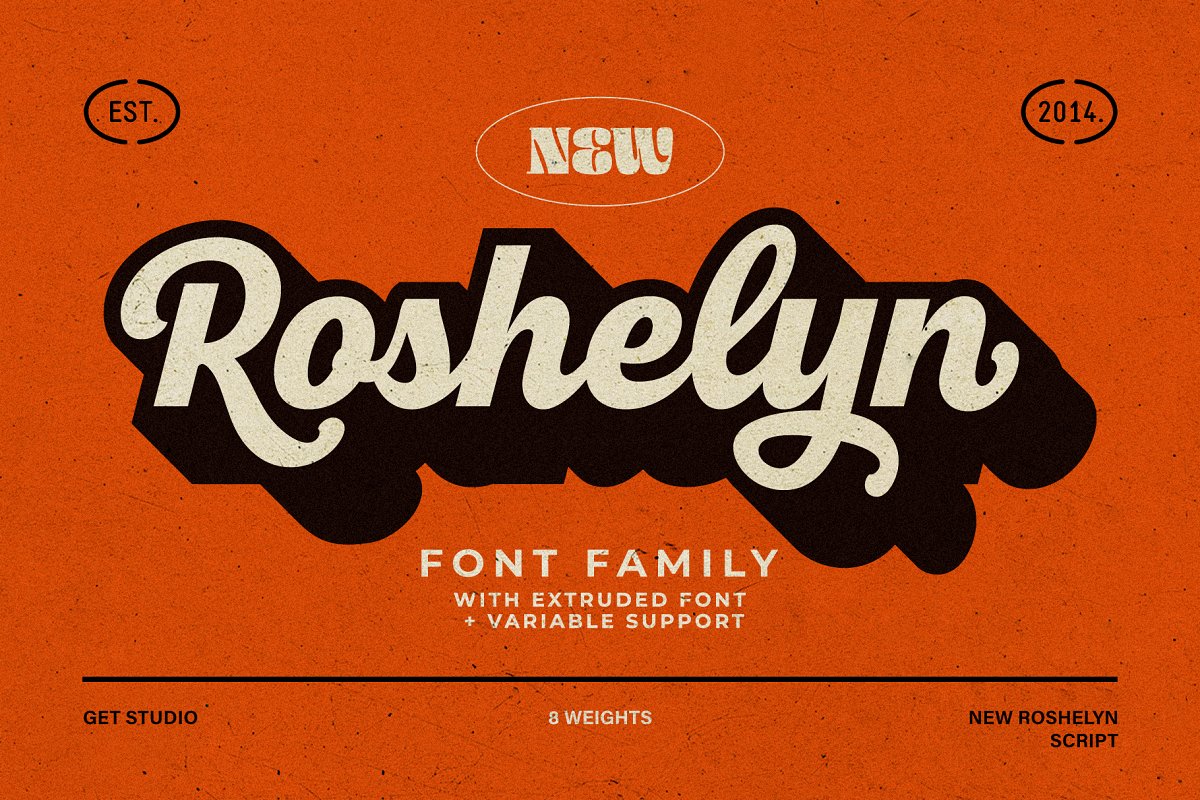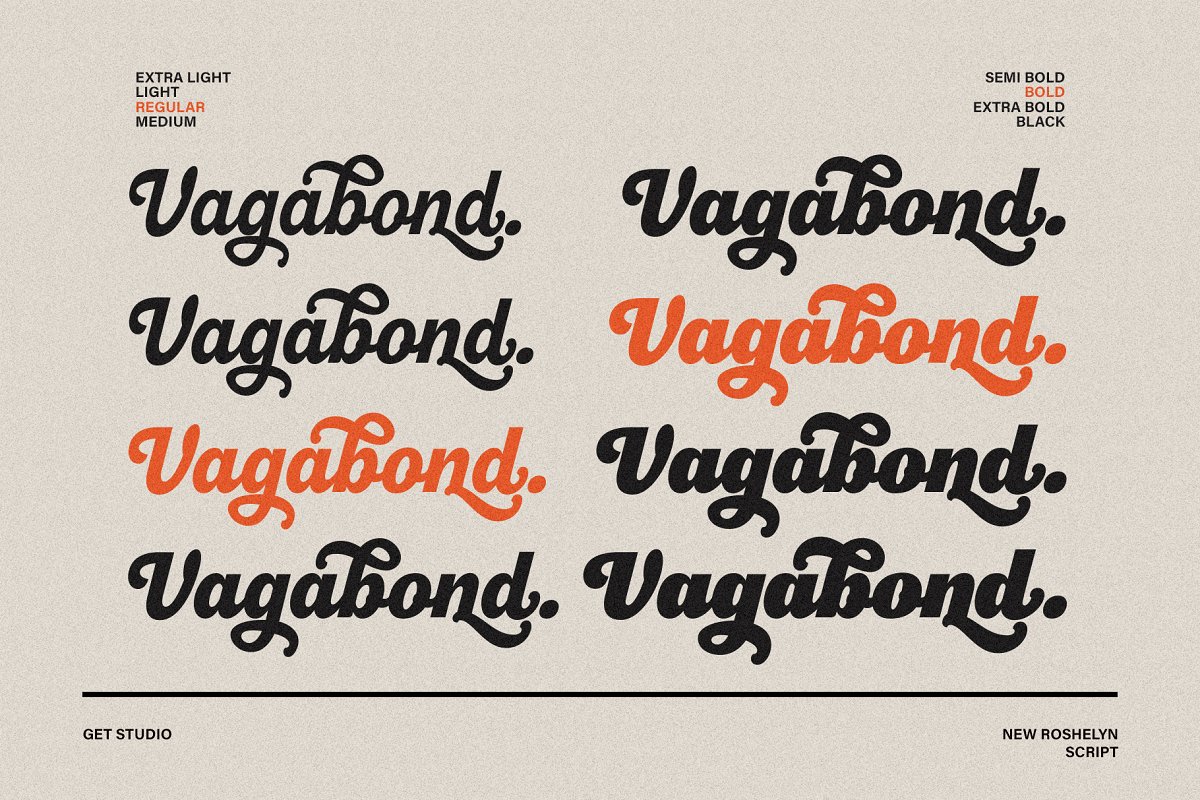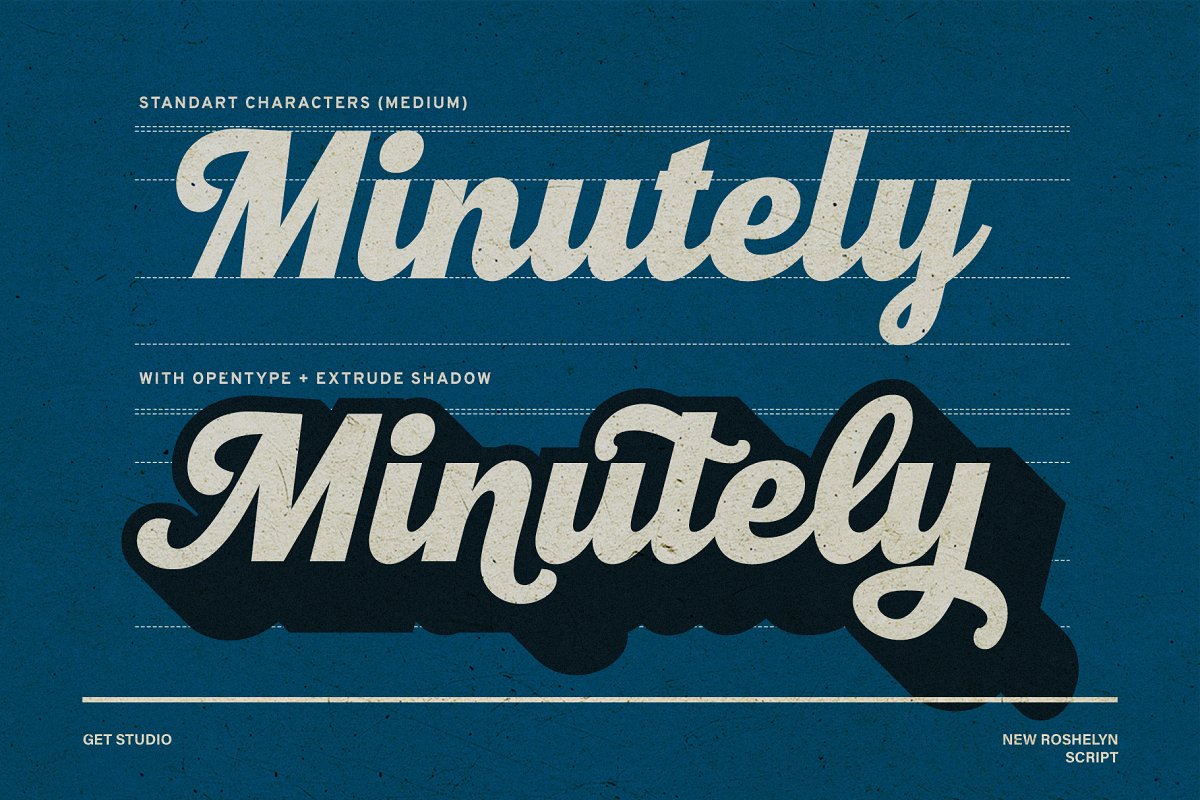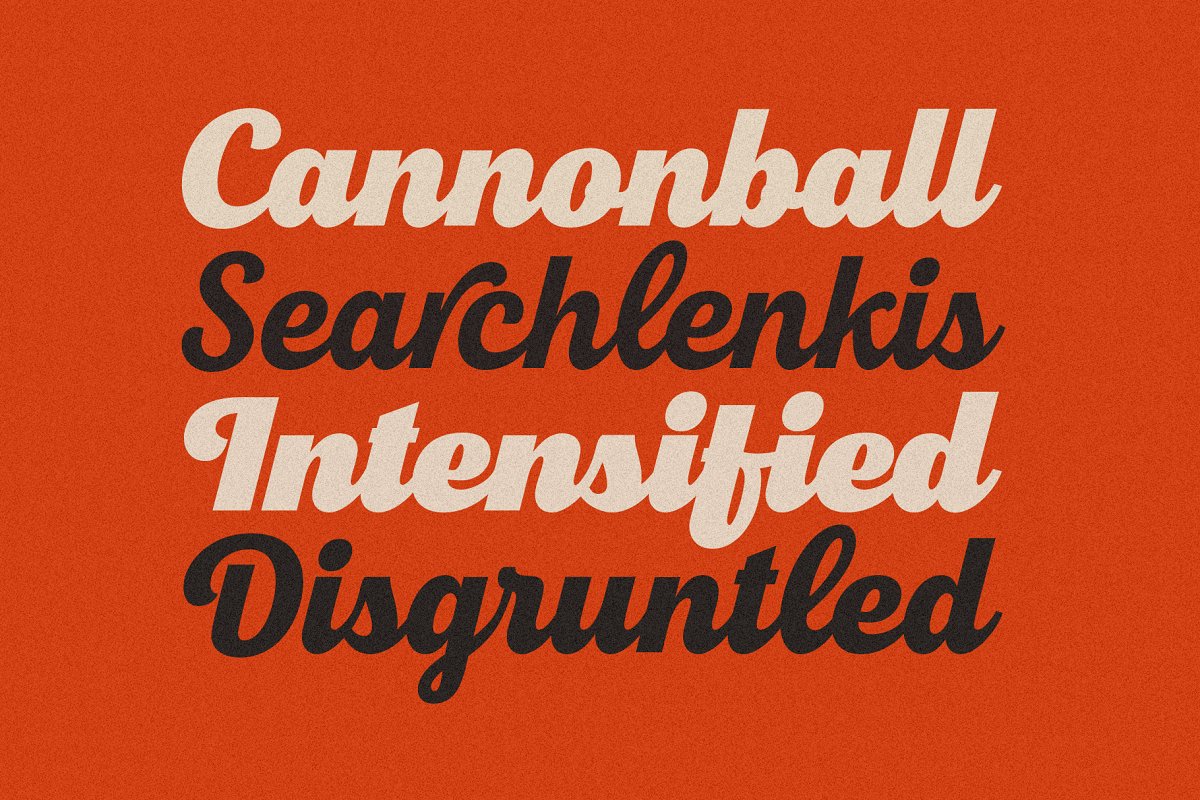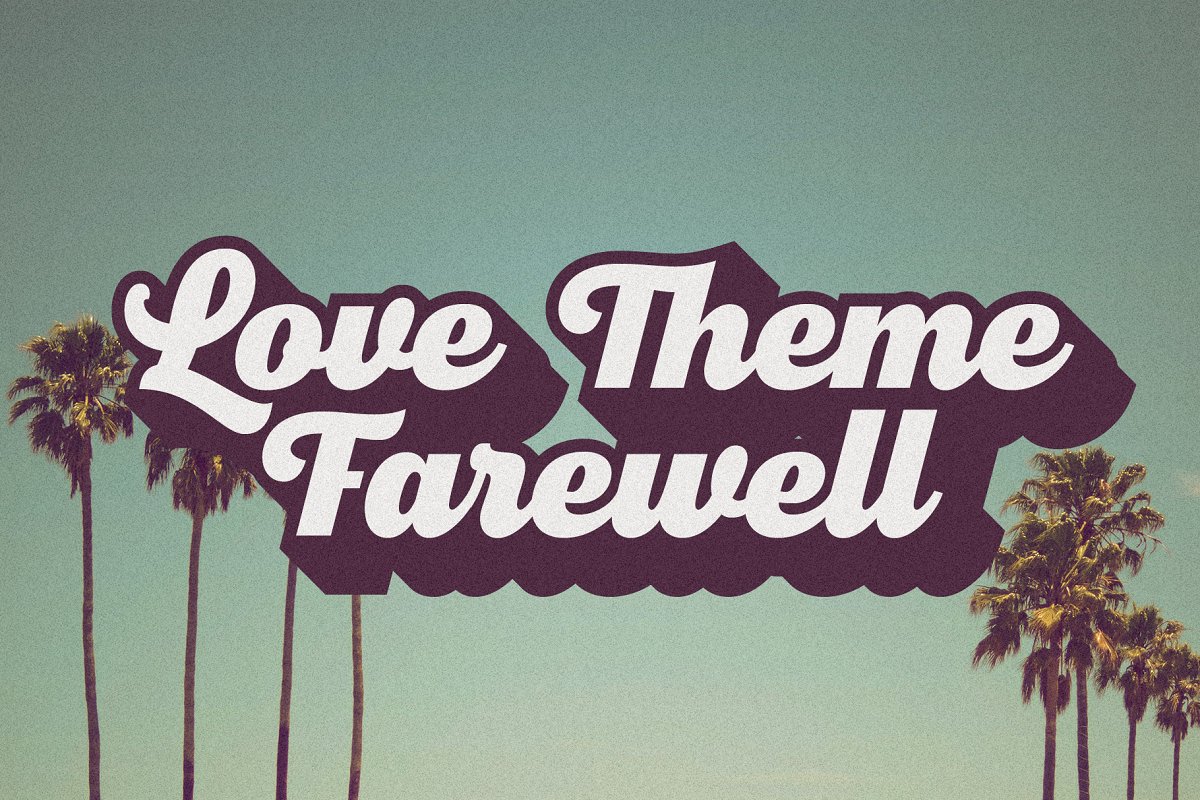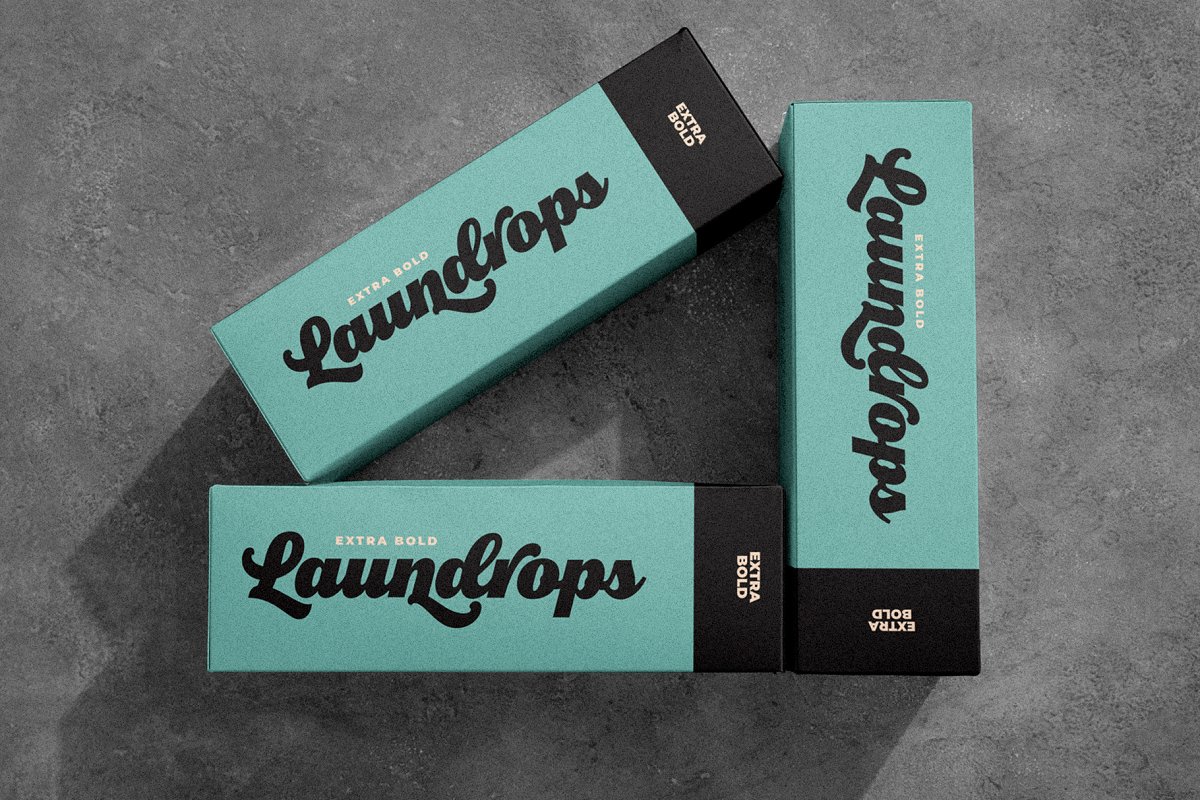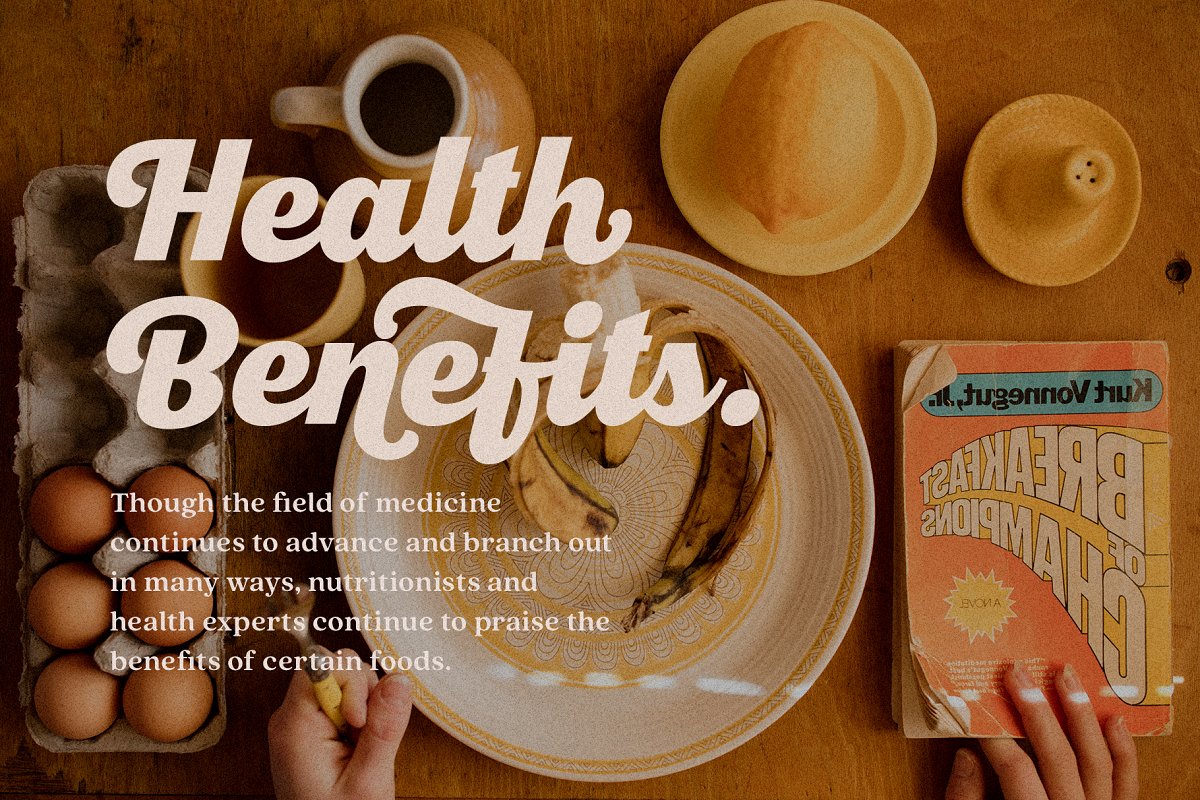
About the New Roshelyn Script Font Family
Introducing New Roshelyn Font Family, a new carefully crafted and nicely balanced curve on script typefaces with personality, Also with Extrude Version and Swash Tail make it look Retro, You can use it as a logo, badge, insignia, packaging, headline, poster, t-shirt/apparel, greeting card, wedding invitation, etc, The flowing characters are ideal to make an attractive message
Mix and match New Roshelyn Script with a bunch of weights and alternative characters to fit your project, The alternative characters in this font were divided into several OpenType features such as Stylistic Alternates, Stylistic Sets, and Ligature, The OpenType features can be accessed by using the OpenType program such as Adobe Illustrator, Adobe Photoshop, and Adobe InDesign